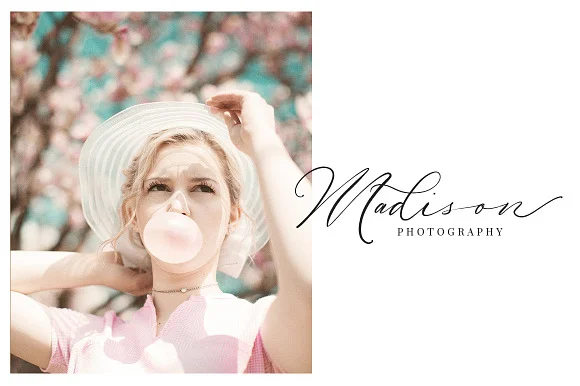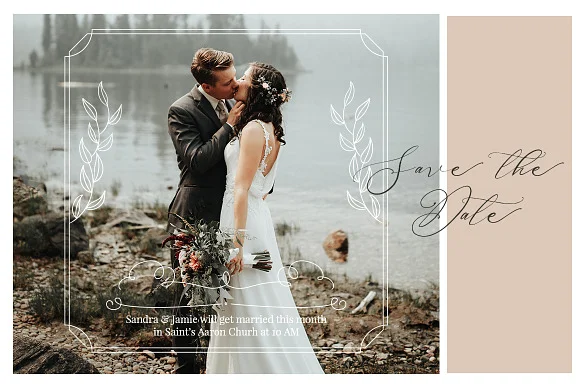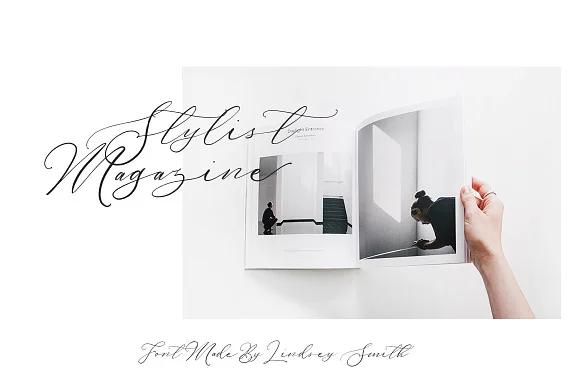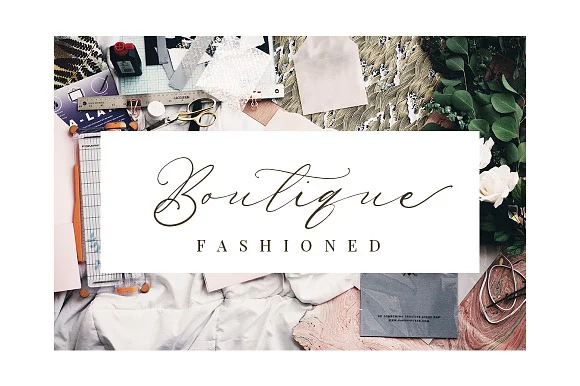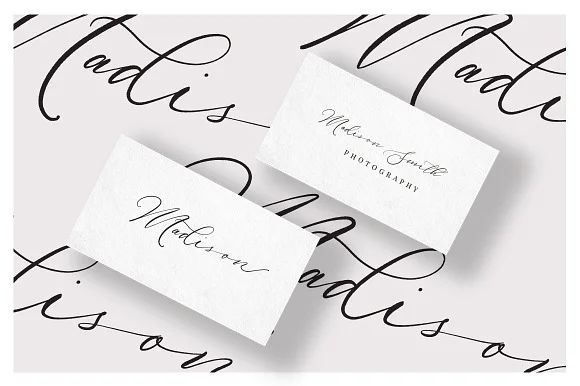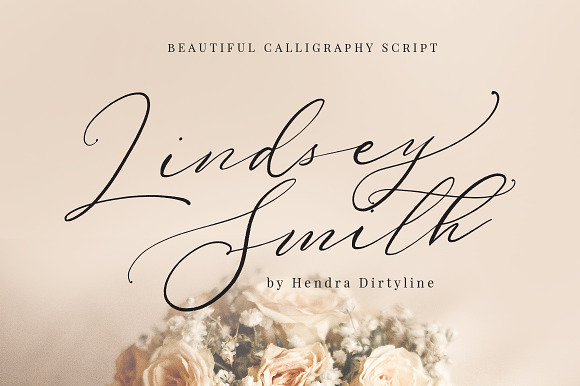
Lindsey Smith Script Font
Lindsey Smith - a new fresh & modern script with a calligraphy style, a dancing baseline! So beautiful on invitation like greeting cards, branding materials, business cards, quotes, posters, and more! Lindsey Smith come with more Alternative and more Ligature. The alternative characters were divided into several Open Type features such as Stylistic Sets, Stylistic Alternates and Ligature. The Open Type features can be accessed by using Open Type savvy programs such as Adobe Illustrator, Adobe InDesign, Adobe Photoshop Corel Draw X version, And Microsoft Word. And this Font has given PUA unicode (specially coded fonts). so that all the alternate characters can easily be accessed in full by a craftsman or designer Features : Initial Alternates Terminal Alternates Standard ligatures Unique ligatures Stylistic Alternates Stylistic sets SWASH Basic Latin A-Z and a-z Numbers International Symbols include PUA Encode